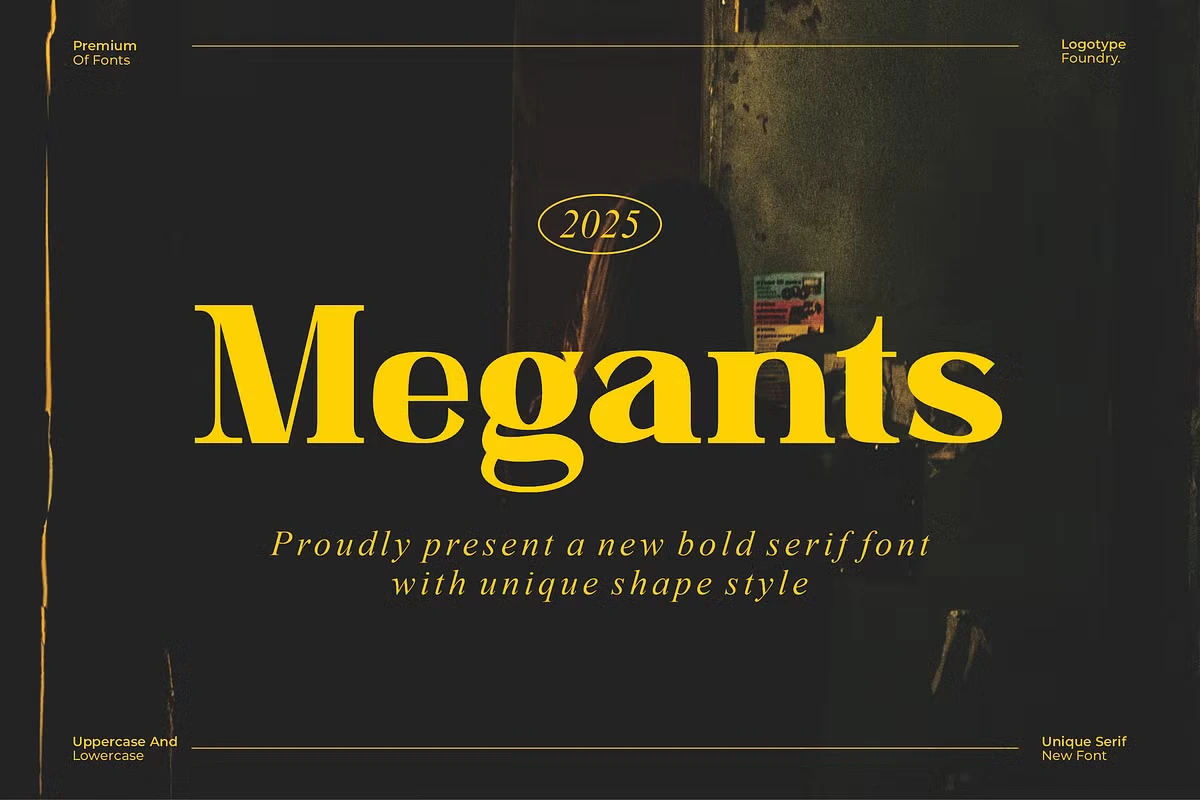
Megants is a classic theme, trendy, bouncy, and cute display style with a serif font. The wood theme has a unique character on it. This is perfect to be used in combination with invitation card designs, company logos, movie names, movie titles, business cards, book titles, brand names and other such designs.
Megants Font Serif